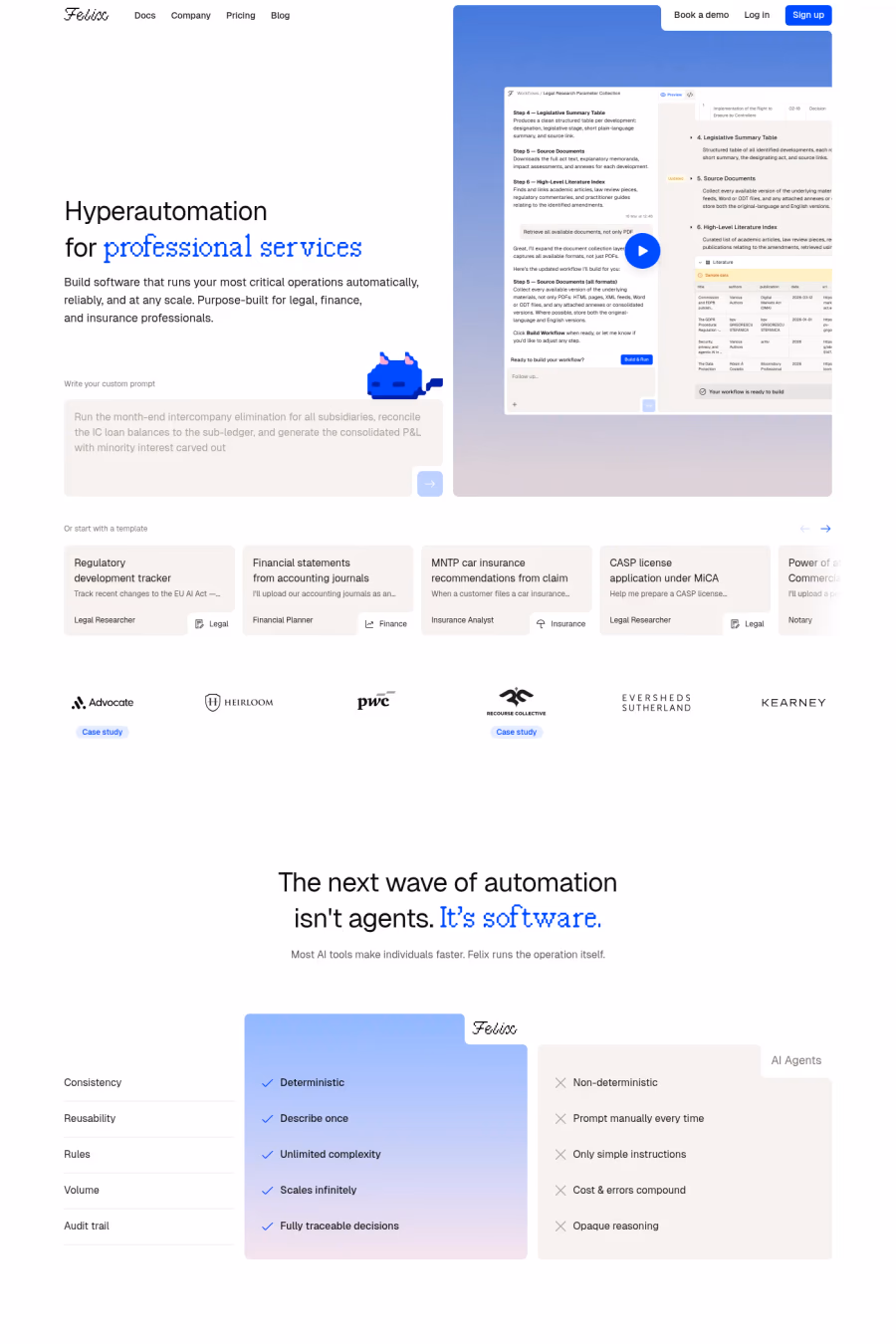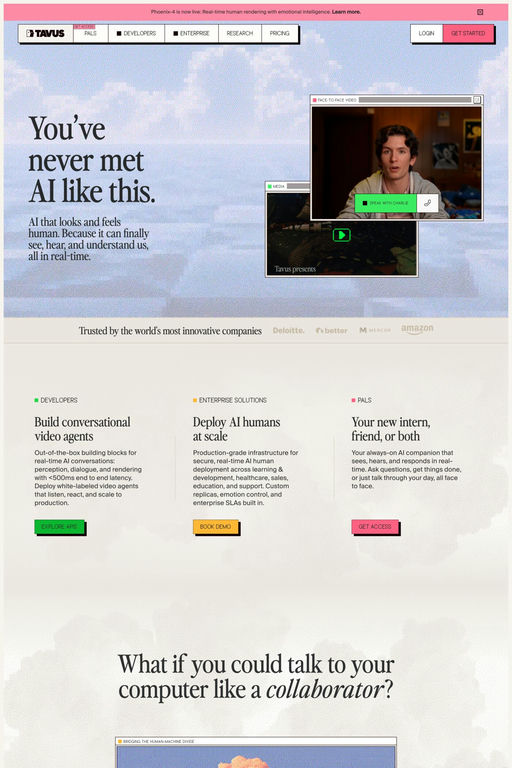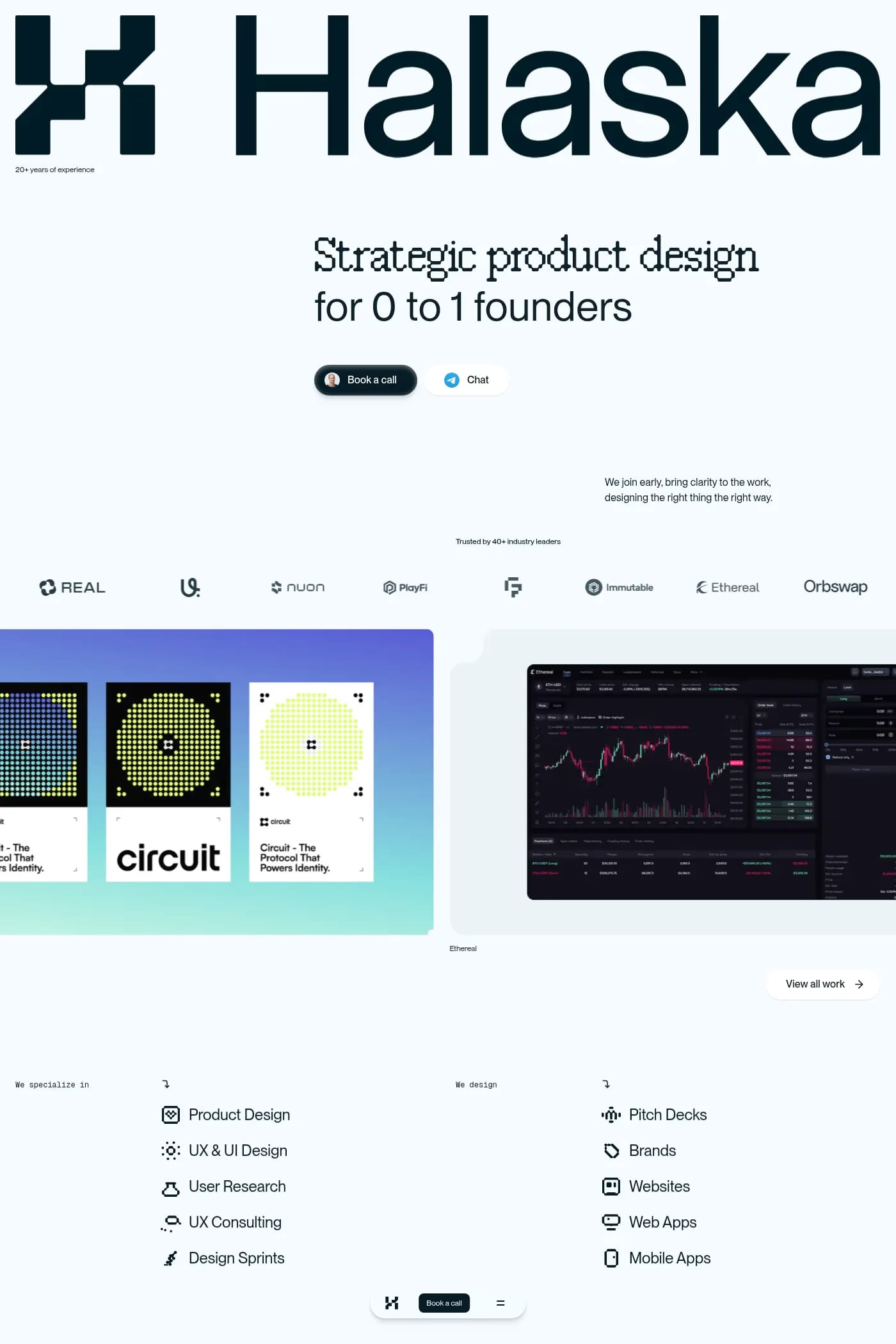
FK Raster is a display typeface from Florian Karsten Typefaces.
FK Raster Grotesk is a pixel-based sans-serif typeface, sharpest at the 12-pixel size. Its Compact variant partially abandons the pixel grid and serves as a tightly spaced display typeface, carefully kerned to leave no superfluous gaps.
A1 features 3 websites using FK Raster, including Felix, Tavus, and Halaska. They lean towards Sans-serif, Animated, and Gradients design styles, and they’re most often built with Next.js, Webflow, and Framer.